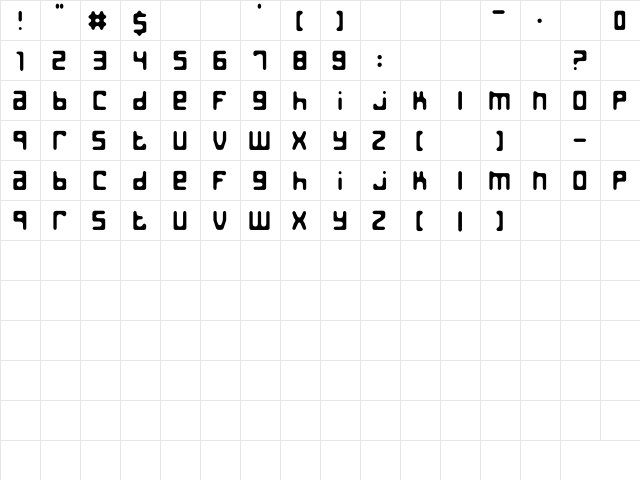
Jed the Humanoid Regular
| Designer | Lauren C. Brown |
Design Context for Jed the Humanoid Typeface
Jed the Humanoid offers clean, dependable letterforms without strong stylistic allegiance, making it a practical choice for designers who need flexibility.